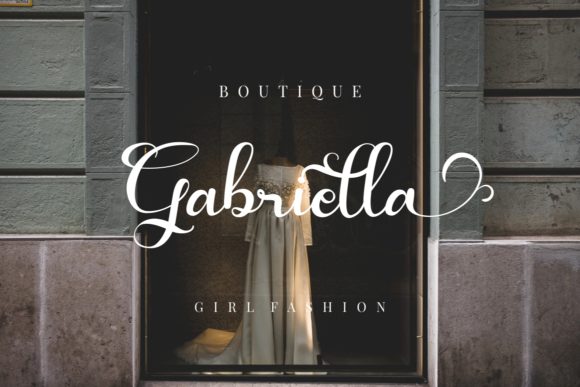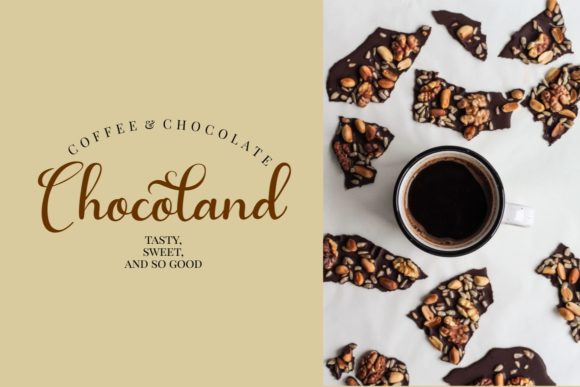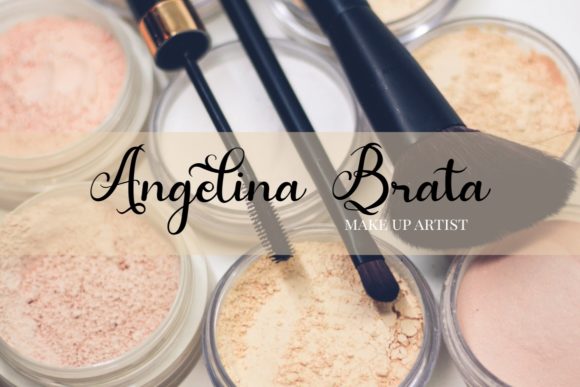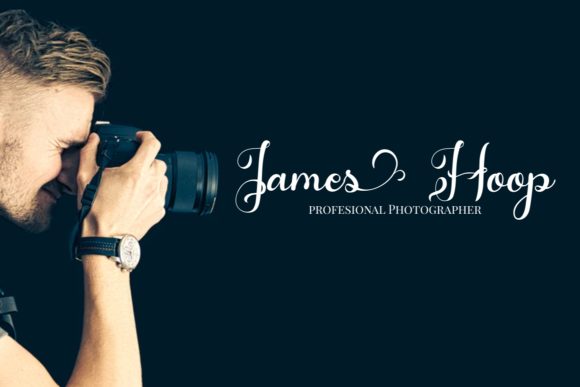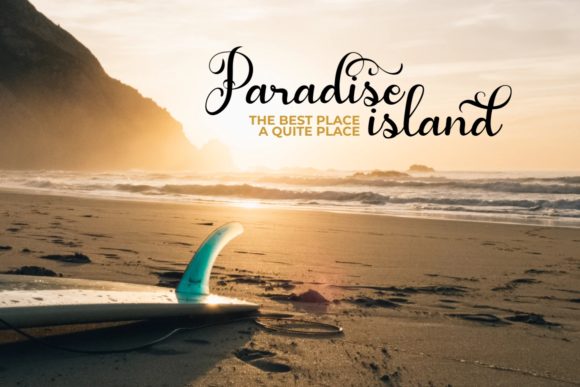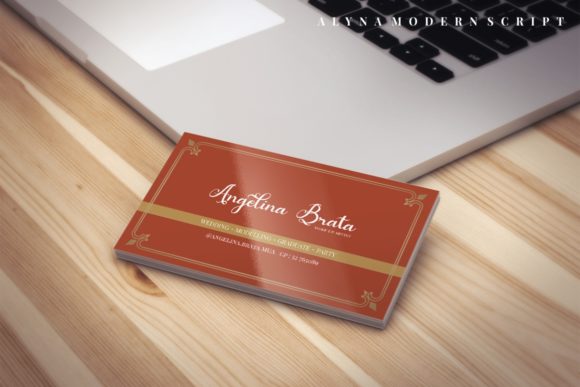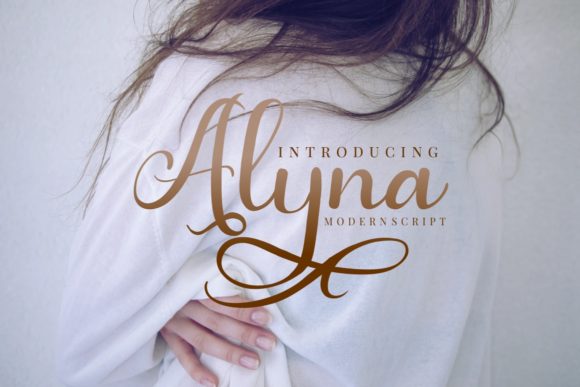
Alyna Font: The Ultimate Cute and Casual Handwritten Font for Designers and Crafters
Are you looking for a font that can add a touch of warmth and friendliness to your designs? Look no further than Alyna Font, a beautiful handwritten font that is sure to capture the hearts of designers and crafters alike. With its incredibly friendly feel, gorgeous swashes, and ligatures, Alyna Font is the perfect choice for creating stunning wedding invitations, stationary art, social media posts, and greeting cards.
What Makes Alyna Font So Special?
Alyna Font is a cute and casual handwritten font that boasts an authentic feel, making it perfect for designs that require a personal touch. Its gorgeous swashes and ligatures add a level of sophistication and elegance, making it incredibly versatile. Whether you’re designing a wedding invitation or a social media post, Alyna Font is sure to make your design stand out from the crowd.
Features of Alyna Font
- Cute and Casual: Alyna Font has a playful and informal feel that’s perfect for designs that require a friendly touch.
- Handwritten: With its handwritten style, Alyna Font adds a personal touch to any design.
- Gorgeous Swashes: The font features beautiful swashes that add a level of elegance and sophistication.
- Ligatures: Alyna Font includes ligatures that make it easy to create beautiful, flowing text.
- Authentic Feel: The font has an authentic feel that’s perfect for designs that require a personal touch.
Uses for Alyna Font
Alyna Font is incredibly versatile and can be used for a wide range of design projects, including:
- Wedding Invitations: Create stunning wedding invitations that set the tone for a beautiful and memorable day.
- Stationary Art: Use Alyna Font to create beautiful stationary art that’s perfect for letters, notes, and other correspondence.
- Social Media Posts: Add a touch of personality to your social media posts with Alyna Font.
- Greeting Cards: Create cute and personalized greeting cards for any occasion.
Why Designers and Crafters Love Alyna Font
Designers and crafters love Alyna Font for its unique combination of style and versatility. The font is easy to use and can be incorporated into a wide range of design projects. Its friendly feel makes it perfect for designs that require a personal touch, while its gorgeous swashes and ligatures add a level of sophistication and elegance.
Tips for Using Alyna Font
Here are a few tips for getting the most out of Alyna Font:
- Experiment with Swashes: Don’t be afraid to experiment with the font’s gorgeous swashes to add a touch of elegance to your design.
- Use Ligatures: Use the font’s ligatures to create beautiful, flowing text that’s easy to read.
- Mix and Match: Don’t be afraid to mix and match Alyna Font with other fonts to create a unique and eye-catching design.
| Font Name | Alyna Font |
| Author | yunitaecy |
Alyna Font is a beautiful and versatile handwritten font that’s perfect for designers and crafters who want to add a touch of warmth and friendliness to their designs. With its gorgeous swashes, ligatures, and authentic feel, Alyna Font is sure to become a favorite in your design arsenal. Whether you’re creating wedding invitations, stationary art, social media posts, or greeting cards, Alyna Font is the perfect choice.